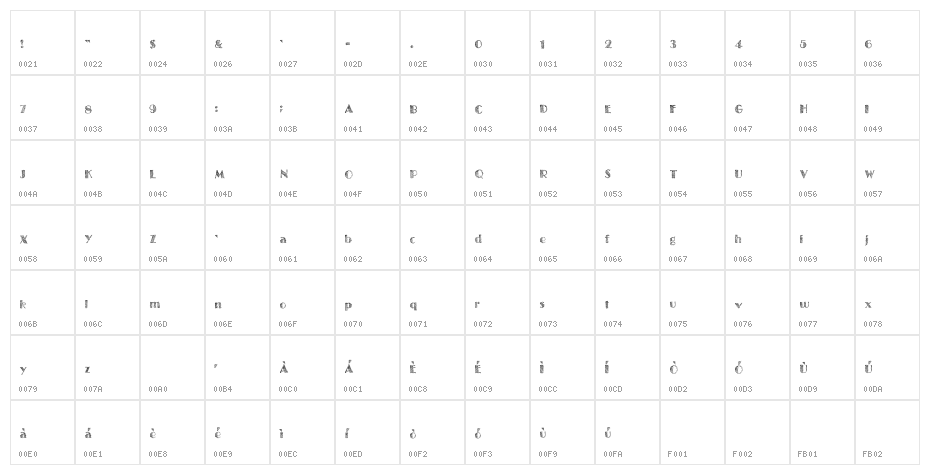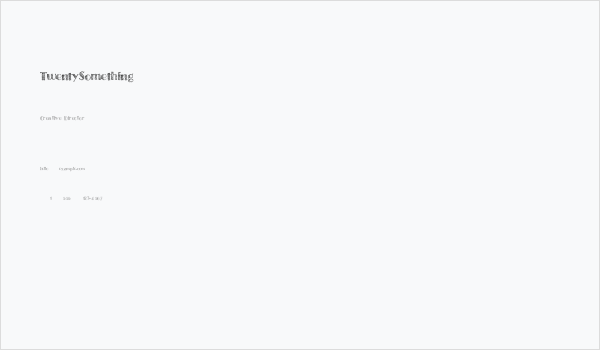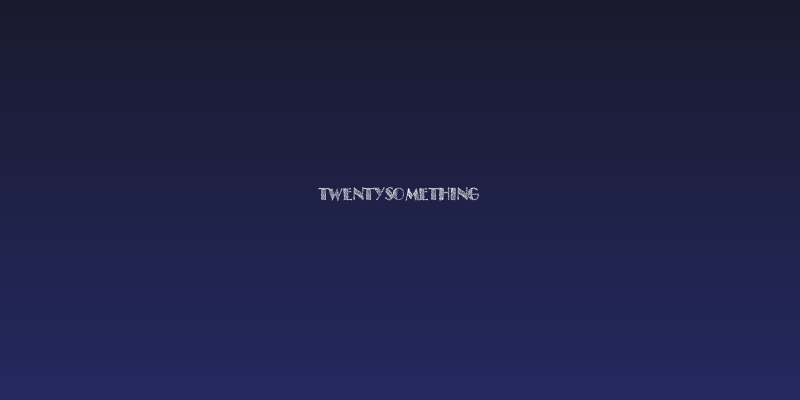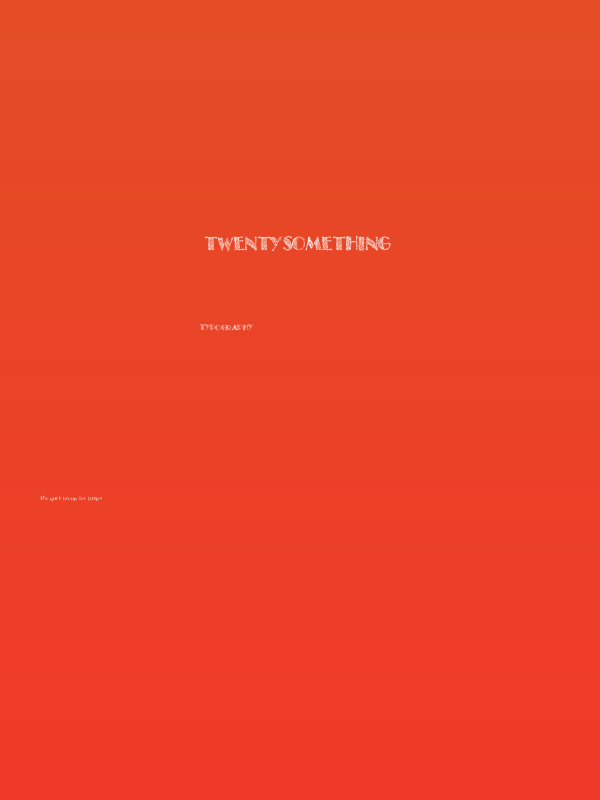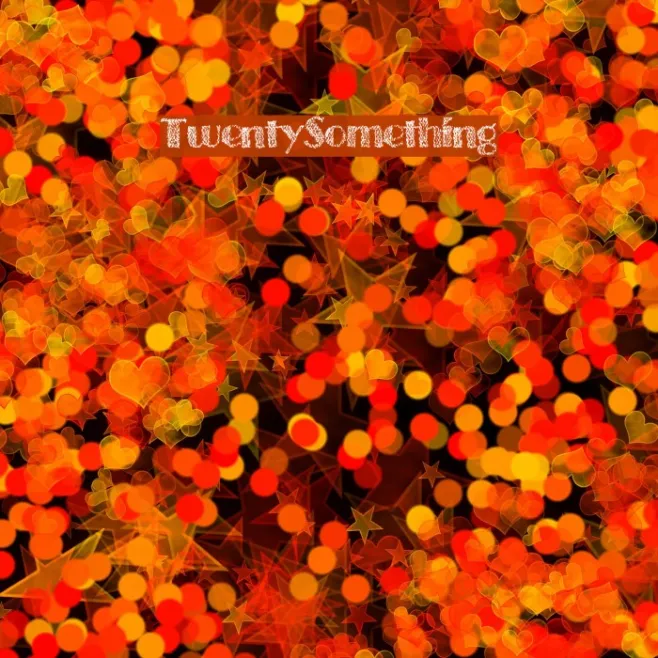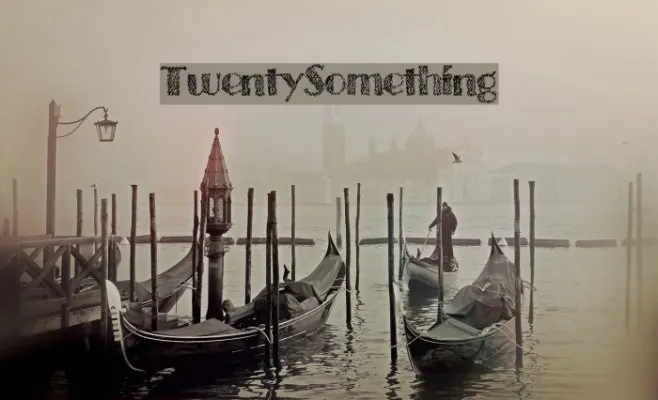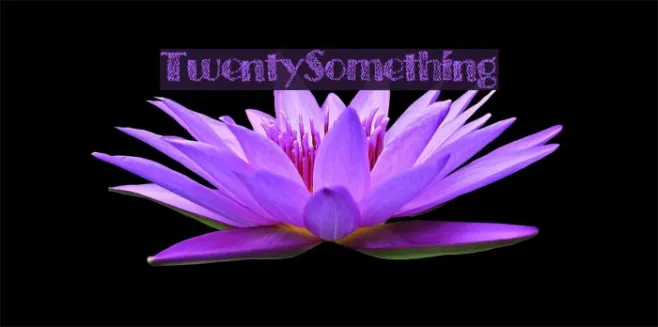
TwentySomething Font
TwentySomething Description
This font features a unique, textured appearance that gives it a handcrafted, artistic feel. The characters are bold and slightly condensed, with a rough, stippled texture that adds depth and interest. The uppercase letters are strong and commanding, while the lowercase letters maintain a consistent style with a slightly more delicate touch. The numbers and special characters follow the same textured pattern, ensuring a cohesive look across all elements. This font's distinctive style makes it stand out, perfect for projects that require a creative and eye-catching design.
| Overall Style | Artistic, Handcrafted |
| Proposed Projects | Ideal for creative projects such as posters, album covers, and artistic branding materials. |